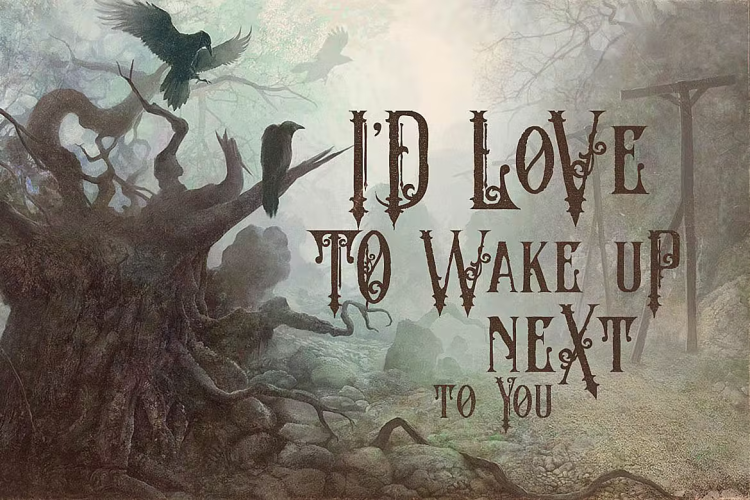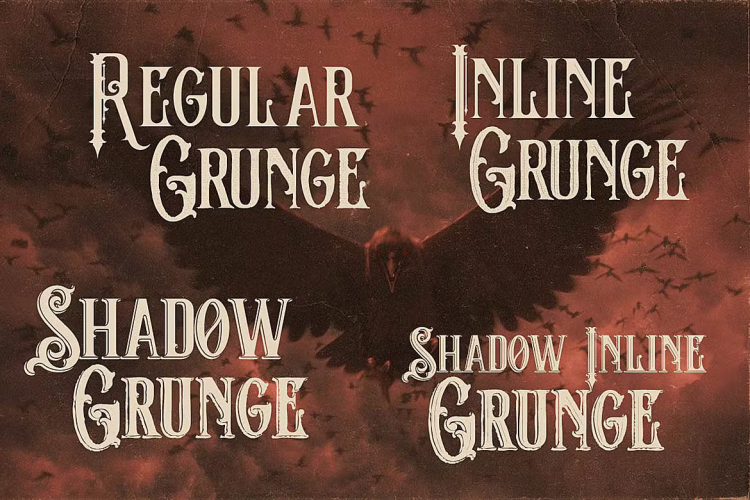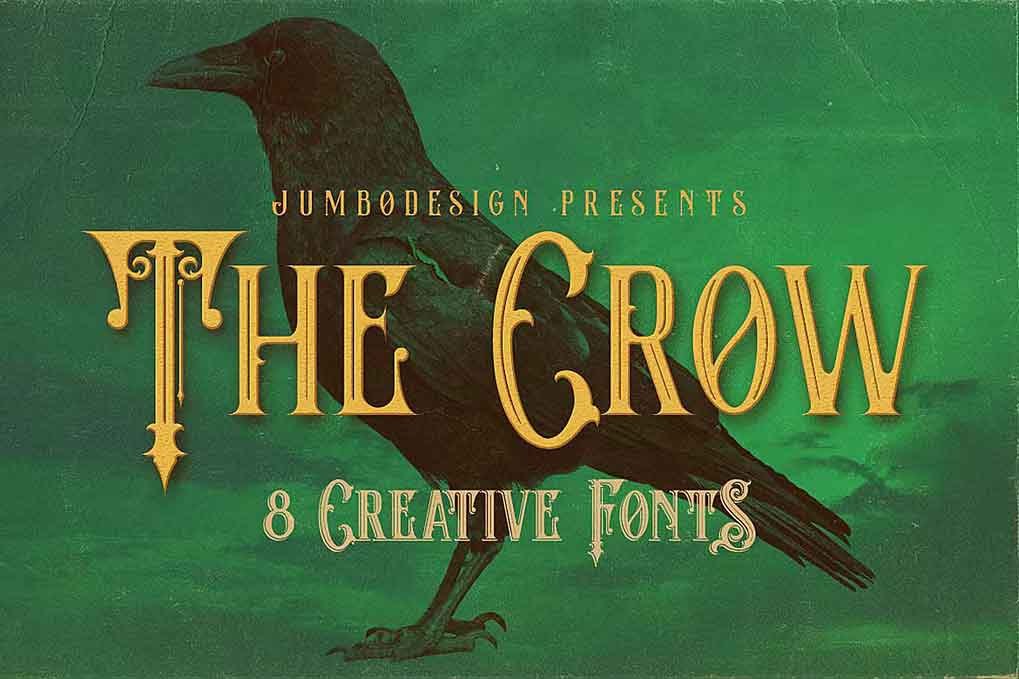
The Crow Vintage Style Font
Unique retro or vintage style custom serif font with 8 styles: regular and grunge, inline and inline grunge, shadow and shadow grunge, inline shadow and inline shadow grunge.
The Crow Vintage Style Font is a Web Fonts font that brings a professional and versatile look to your projects. Unique retro or vintage style custom serif font with 8 styles: regular and grunge, inline and inline grunge, shadow and shadow grunge, inline shadow and inline shadow grunge.